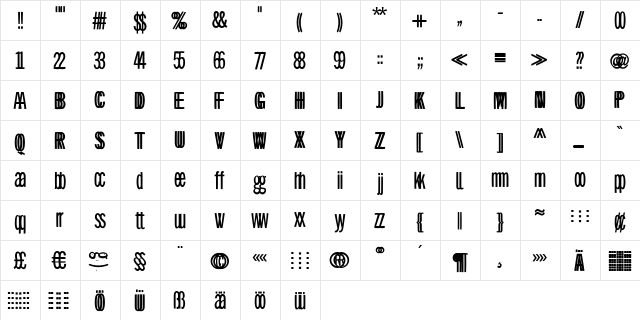
TwinSetSansOne Regular
Design Context for TwinSetSansOne Typeface
TwinSetSansOne is a composed and adaptable typeface that performs quietly and consistently across a wide range of design contexts.